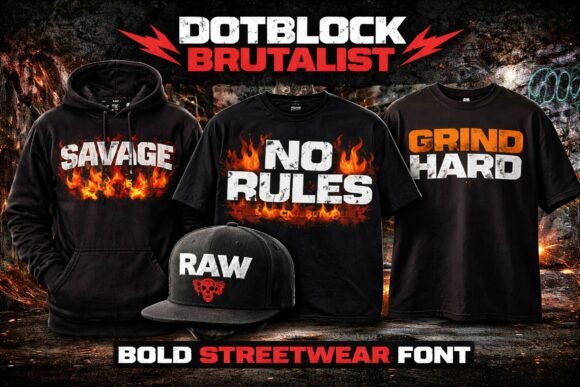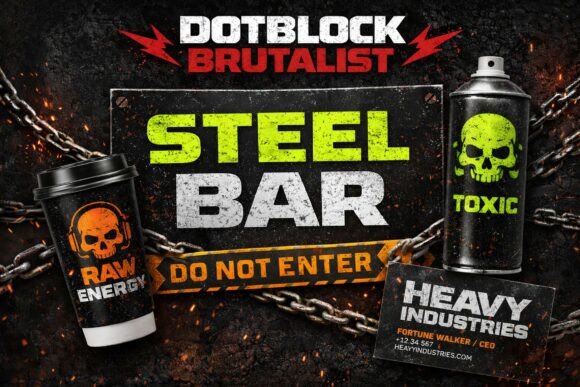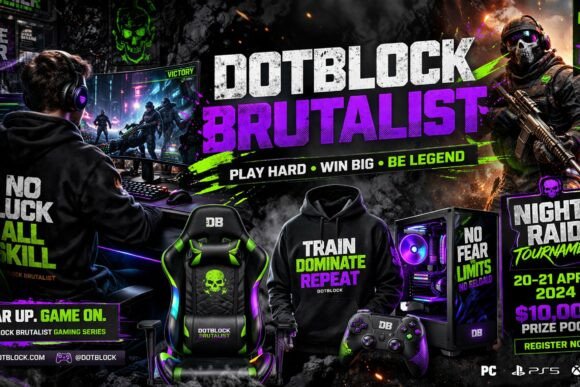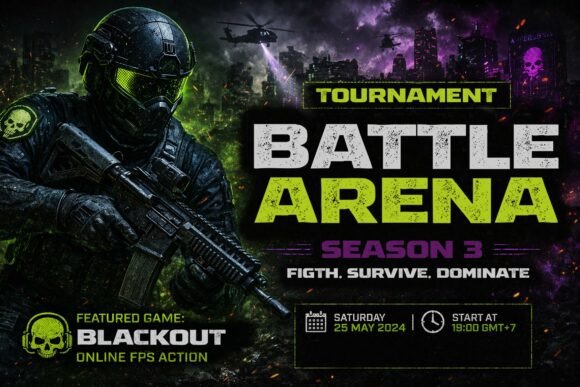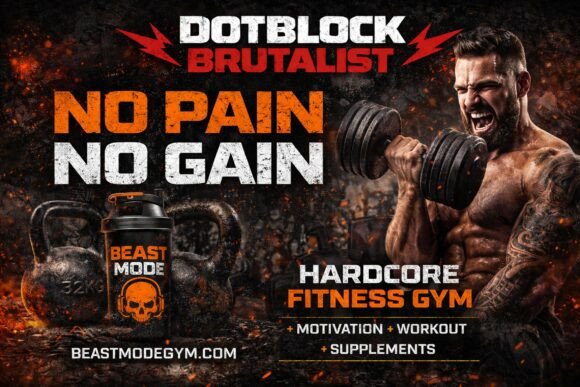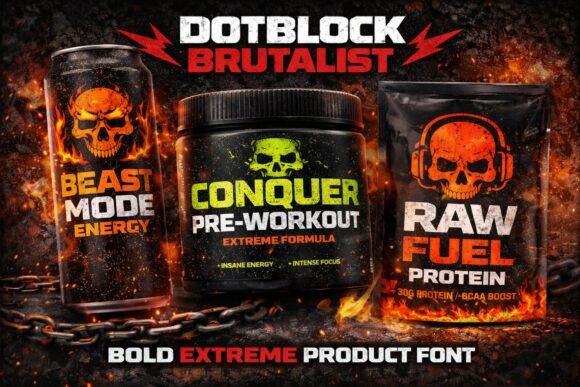
Introducing Dot Block Brutalist Font: The Ultimate Display Font for Bold Designs
In the world of typography, few fonts have made a statement as bold as Dot Block Brutalist. Inspired by the raw, industrial aesthetics of brutalist design, this experimental display font is perfect for designers and crafters looking to add an edgy touch to their projects. With its unique combination of heavy block shapes and subtle dot-texture detailing, Dot Block Brutalist delivers a strong, modern visual impact that’s sure to demand attention.
The Brutalist Design Movement: A Brief History
Brutalist design, which emerged in the 1950s, is characterized by its use of raw, unfinished materials and emphasis on functionality over aesthetics. The term “brutalism” comes from the French word “brut,” meaning “raw” or “unfinished.” This design movement was popularized by architects such as Le Corbusier and Walter Gropius, who sought to create buildings that were honest and unpretentious. Today, brutalist design has influenced various creative fields, including typography, graphic design, and even web design.
The Inspiration Behind Dot Block Brutalist
Dot Block Brutalist takes its cue from the brutalist design movement, incorporating heavy block shapes and industrial textures to create a bold, eye-catching font. The addition of subtle dot-texture detailing adds a layer of depth and visual interest, setting this font apart from more traditional display fonts. The result is a font that’s both modern and edgy, perfect for designers looking to add a touch of industrial chic to their projects.
Key Features of Dot Block Brutalist
- Bold and Experimental Design: Dot Block Brutalist is a statement font that demands attention. Its bold, block shapes and industrial textures make it perfect for headlines, titles, and other display text.
- Subtle Dot-Texture Detailing: The addition of subtle dot-texture detailing adds a layer of depth and visual interest to the font, setting it apart from more traditional display fonts.
- Heavy Block Shapes: The font’s heavy block shapes give it a strong, modern look that’s perfect for designers looking to add an edgy touch to their projects.
- Perfect for Branding and Graphic Design: Dot Block Brutalist is perfect for branding, music posters, event promotions, packaging, and bold graphic design projects that demand attention.
Use Cases for Dot Block Brutalist
Dot Block Brutalist is a versatile font that can be used in a variety of design projects, including:
- Branding: Use Dot Block Brutalist to create bold, eye-catching logos and branding materials that demand attention.
- Music Posters: Add an edgy touch to your music posters and flyers with Dot Block Brutalist’s bold, industrial design.
- Event Promotions: Use Dot Block Brutalist to create bold, attention-grabbing event promotions, including posters, flyers, and social media graphics.
- Packaging: Add a touch of industrial chic to your packaging designs with Dot Block Brutalist’s bold, block shapes and subtle dot-texture detailing.
- Graphic Design: Use Dot Block Brutalist to add a bold, modern touch to your graphic design projects, including brochures, magazines, and website headers.
Tips for Using Dot Block Brutalist
To get the most out of Dot Block Brutalist, here are a few tips to keep in mind:
- Use it sparingly: Due to its bold design, Dot Block Brutalist is best used sparingly. Use it for headlines and titles, and pair it with a simpler font for body text.
- Experiment with colors: Dot Block Brutalist looks great in bold, bright colors. Experiment with different color combinations to find the one that works best for your project.
- Pair it with images: Dot Block Brutalist pairs well with industrial or urban images. Use it to add a bold, modern touch to your designs.
Dot Block Brutalist is a bold and experimental display font that’s perfect for designers and crafters looking to add an edgy touch to their projects. With its unique combination of heavy block shapes and subtle dot-texture detailing, this font delivers a strong, modern visual impact that’s sure to demand attention. Whether you’re working on a branding project, music poster, or graphic design project, Dot Block Brutalist is the perfect choice.